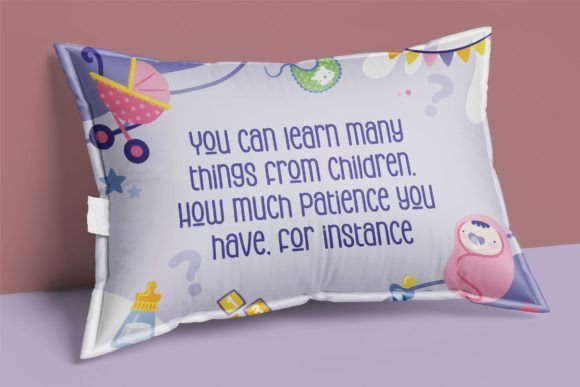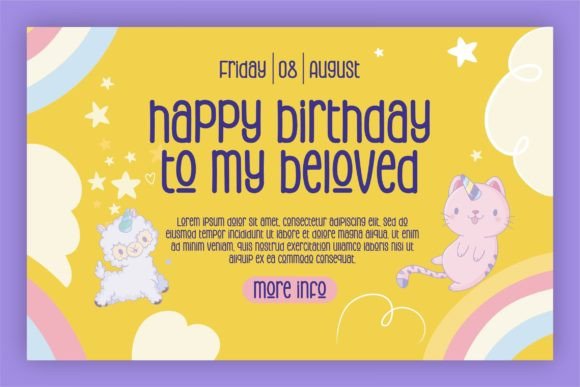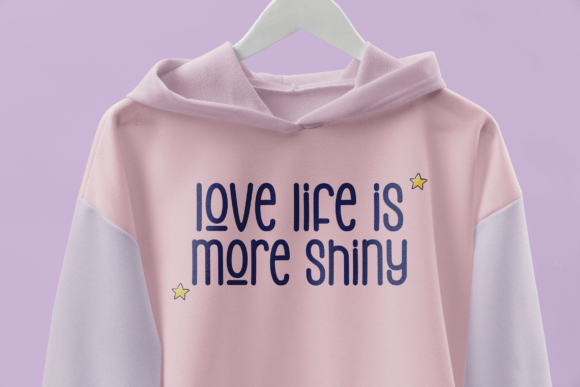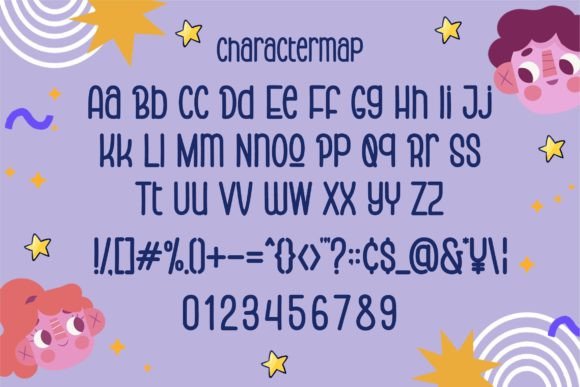
Babydoll Playings Font: The Ultimate Choice for Whimsical Designs
In the world of typography, fonts play a crucial role in conveying the tone and personality of a design. If you’re looking for a font that exudes a sense of fun, cuteness, and playfulness, then Babydoll Playings is the perfect choice. This whimsical font is designed to resemble children’s handwriting, making it an ideal choice for designs related to kids’ themes, toy products, birthday invitations, and more.
Characteristics of Babydoll Playings Font
Babydoll Playings font features smooth curves and rounded letterforms, creating a sweet and cheerful vibe that’s sure to capture the attention of your audience. The font’s playful and carefree design evokes a sense of nostalgia and free expression, making it perfect for designs that aim to convey a lighthearted and joyful feel.
Key Features of Babydoll Playings Font
- Whimsical Design: Babydoll Playings font boasts a unique and whimsical design that resembles children’s handwriting.
- Smooth Curves: The font features smooth curves and rounded letterforms, creating a sweet and cheerful vibe.
- Playful and Carefree: The font’s playful and carefree design makes it perfect for designs that aim to convey a lighthearted and joyful feel.
- Nostalgic Feel: Babydoll Playings font evokes a sense of nostalgia and free expression, making it ideal for designs that aim to capture the imagination of your audience.
Use Cases for Babydoll Playings Font
Babydoll Playings font is versatile and can be used across various media, including:
- Kids’ Themes: The font is perfect for designs related to kids’ themes, such as children’s books, nursery decor, and kids’ clothing.
- Toy Products: Babydoll Playings font is ideal for toy products, such as toy packaging, advertisements, and marketing materials.
- Birthday Invitations: The font is perfect for birthday invitations, party decorations, and other celebratory materials.
- Creative Projects: Babydoll Playings font can be used in various creative projects, such as art, craft, and DIY projects.
Benefits of Using Babydoll Playings Font
Using Babydoll Playings font in your designs offers several benefits, including:
- Unique and Eye-Catching: The font’s unique and whimsical design makes it stand out from other fonts, capturing the attention of your audience.
- Emotional Connection: Babydoll Playings font evokes a sense of nostalgia and playfulness, creating an emotional connection with your audience.
- Versatile: The font is versatile and can be used across various media, making it a great addition to your font library.
Tips for Using Babydoll Playings Font
To get the most out of Babydoll Playings font, here are some tips to keep in mind:
- Use it Sparingly: Use the font sparingly to avoid overwhelming your design. Use it for headings or titles to create a playful and whimsical touch.
- Pair it with Other Fonts: Pair Babydoll Playings font with other fonts to create a unique and visually appealing design.
- Experiment with Colors: Experiment with different colors to find the perfect combination that complements the font’s playful and whimsical design.
Babydoll Playings font is a unique and whimsical font that’s perfect for designers and crafters looking to add a playful and cheerful touch to their designs. With its smooth curves, rounded letterforms, and nostalgic feel, this font is ideal for designs related to kids’ themes, toy products, birthday invitations, and more. By using Babydoll Playings font, you can create designs that capture the imagination of your audience and leave a lasting impression.